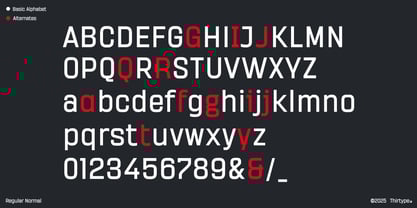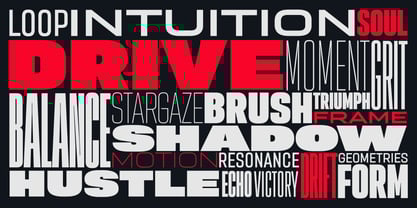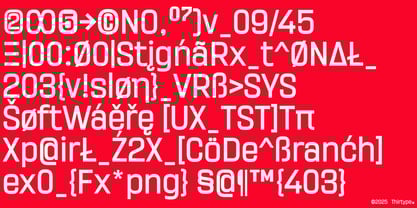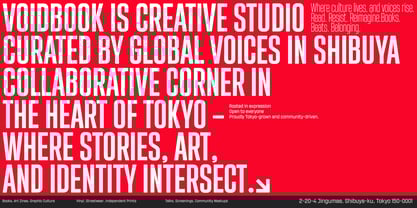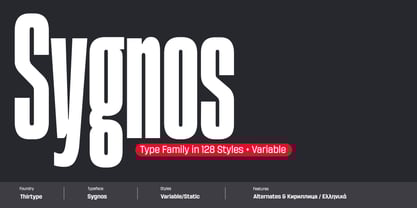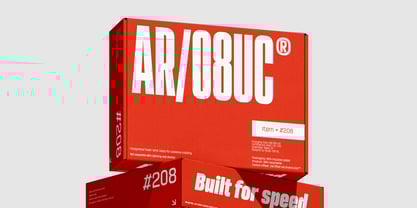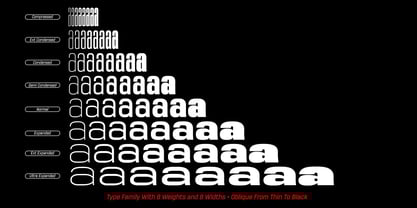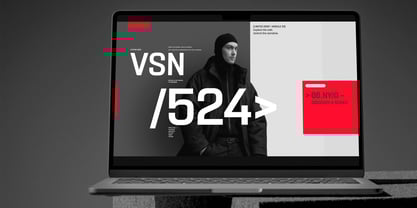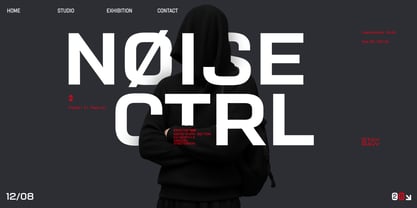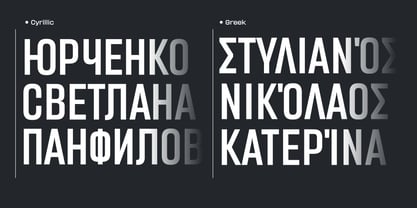
Sygnos
The Sygnos Font Family was designed by Cucu Supriyadi and published by thirtype. Sygnos contains 130 styles and family package options.
Sygnos is a versatile modern display sans-serif crafted for both impact and adaptability. With 128 static styles and 2 variable fonts, it offers a comprehensive system that seamlessly balances expressive design with professional functionality. Its broad range of weights from Thin to Black and widths from Compressed to Ultra Expanded ensures it can handle everything from subtle text settings to bold, eye-catching headlines. The design of Sygnos is rooted in geometric precision combined with a dynamic personality, resulting in a contemporary yet timeless character. This unique balance allows the typeface to perform equally well in branding, editorial layouts, advertising, posters, and digital media—making it a powerful all-in-one tool for modern creatives. Built with flexibility at its core, Sygnos empowers designers with maximum creative control. Its variable fonts enable smooth customization, allowing effortless transitions between weights and widths. This technology not only improves efficiency but also unlocks endless possibilities for unique visual expressions tailored to each project. To ensure global usability, Sygnos comes with comprehensive multilingual support, including Latin, latin Extended, Greek, and Cyrillic alphabets. This makes it an ideal choice for international branding and projects that demand consistent, high-quality typography across different languages and cultural contexts. Offers more than just a typeface, it delivers a complete typographic ecosystem. From fashion and music to sports, technology, and lifestyle branding, it adapts effortlessly to diverse moods and mediums, providing both striking visual impact and professional polish.